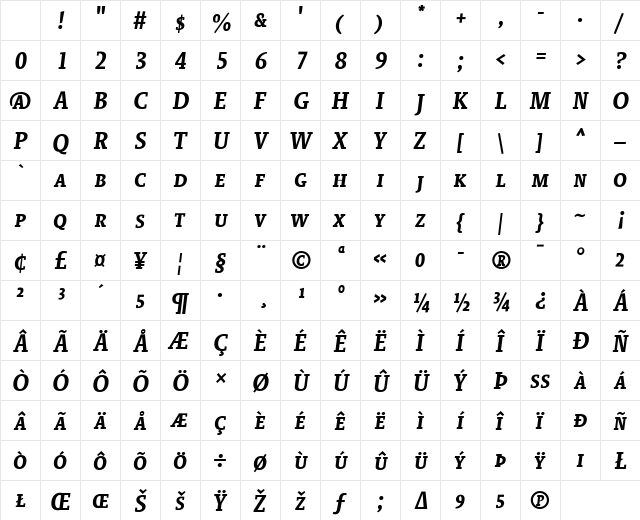
Complete SheriffCaps Bold Italic glyph index. Displaying only characters natively supported by SheriffCaps Bold Italic font.
SheriffCaps is a composed and adaptable typeface that performs quietly and consistently across a wide range of design contexts. The slanted form adds forward momentum and visual energy. Its bold stroke weight gives it real presence on the page.
Pro Tip: Use SheriffCaps for emphasis, pull quotes, and subheadings where its slanted energy can add rhythm to the layout.